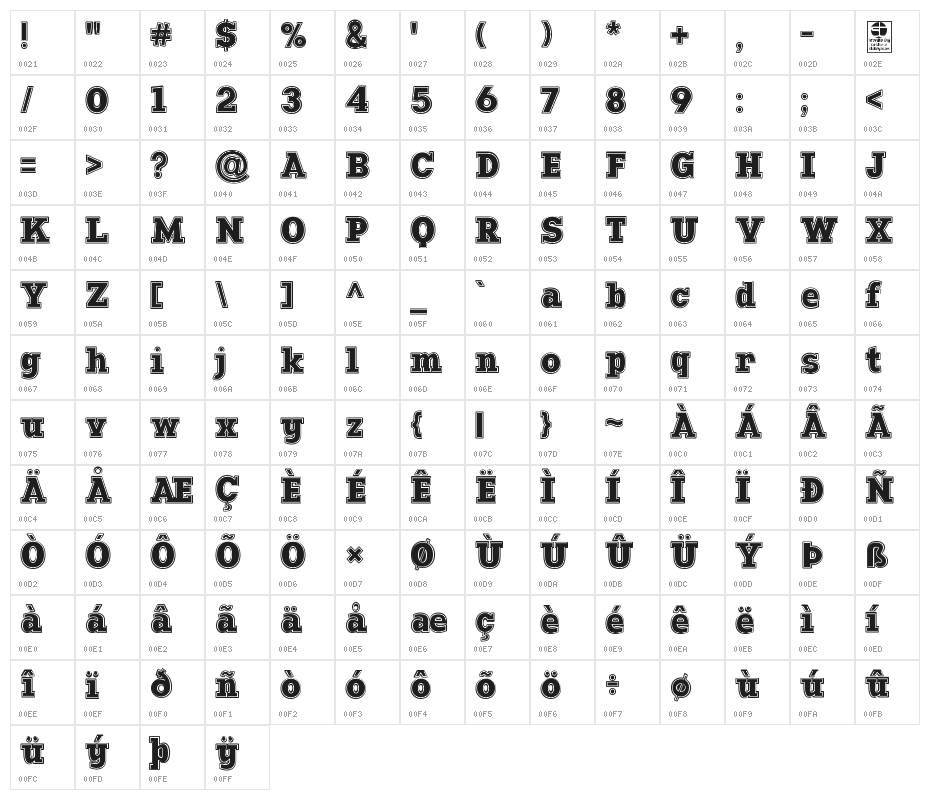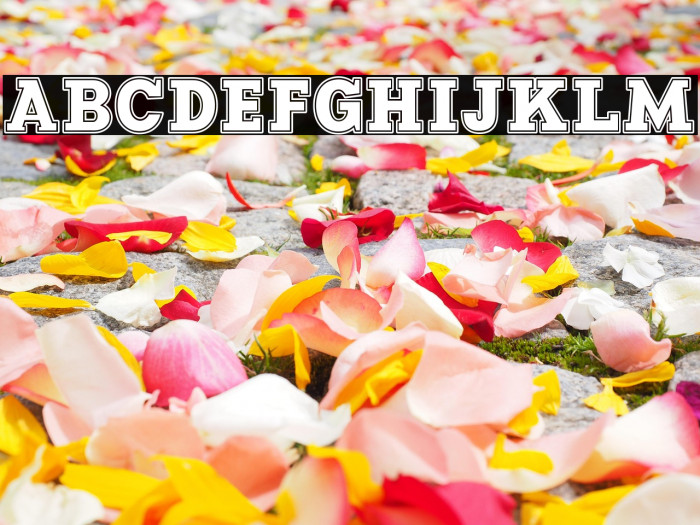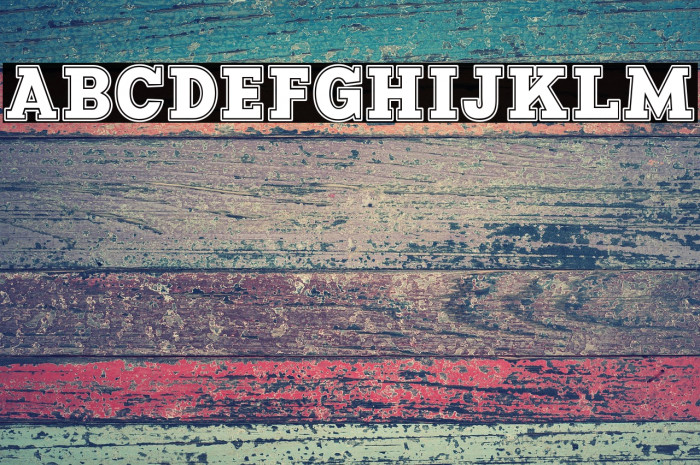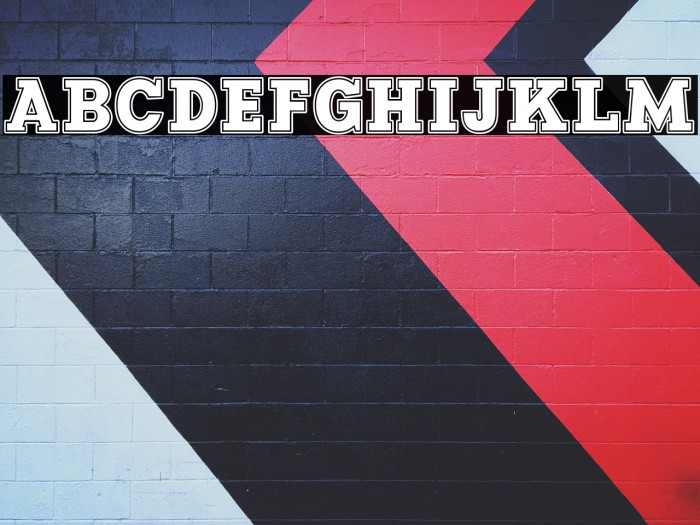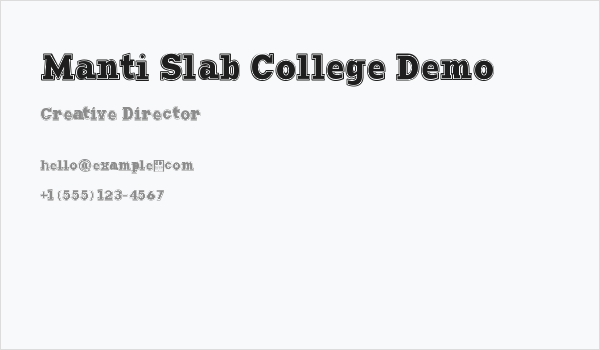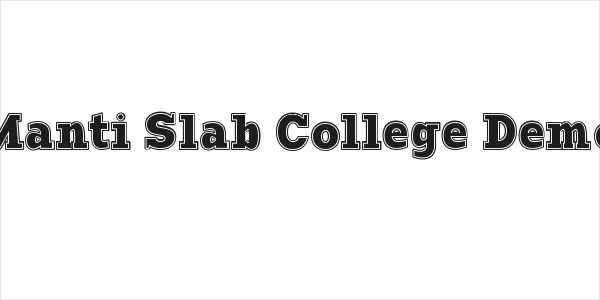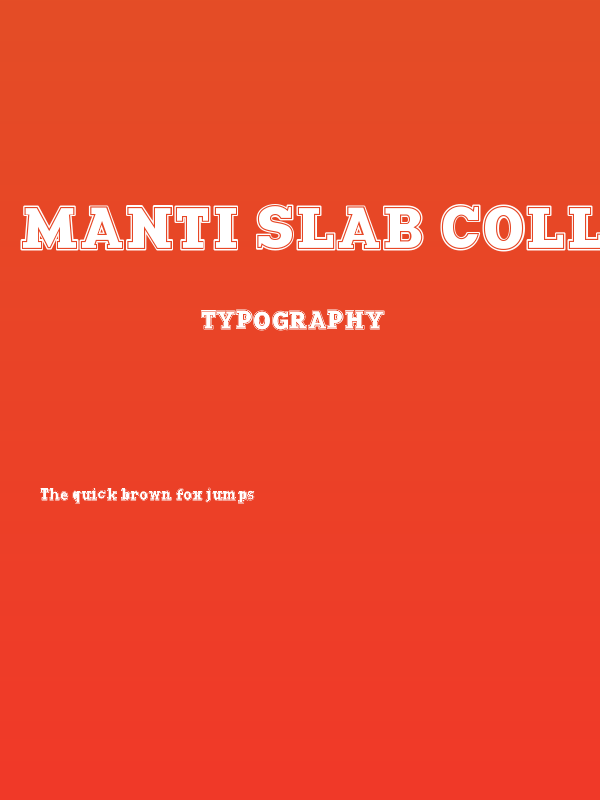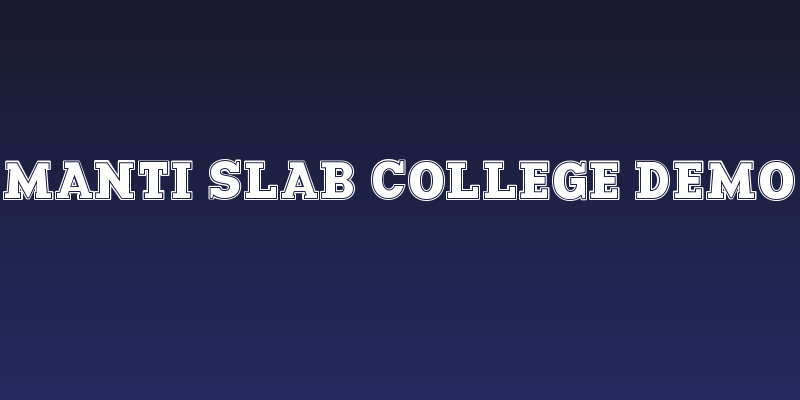
Manti Slab College Demo Font
This font features a bold and robust slab serif style, characterized by thick, block-like serifs that give it a strong and authoritative presence. The letters are designed with a double outline, adding depth and a collegiate feel. The uppercase and lowercase letters maintain a consistent weight, providing a uniform appearance. The numerals and special characters are equally bold, ensuring readability and impact. This font is ideal for projects that require a classic yet bold aesthetic, such as sports team branding or university merchandise.
Overall StyleClassic
Proposed ProjectsPerfect for sports branding, university merchandise, posters, and headlines.